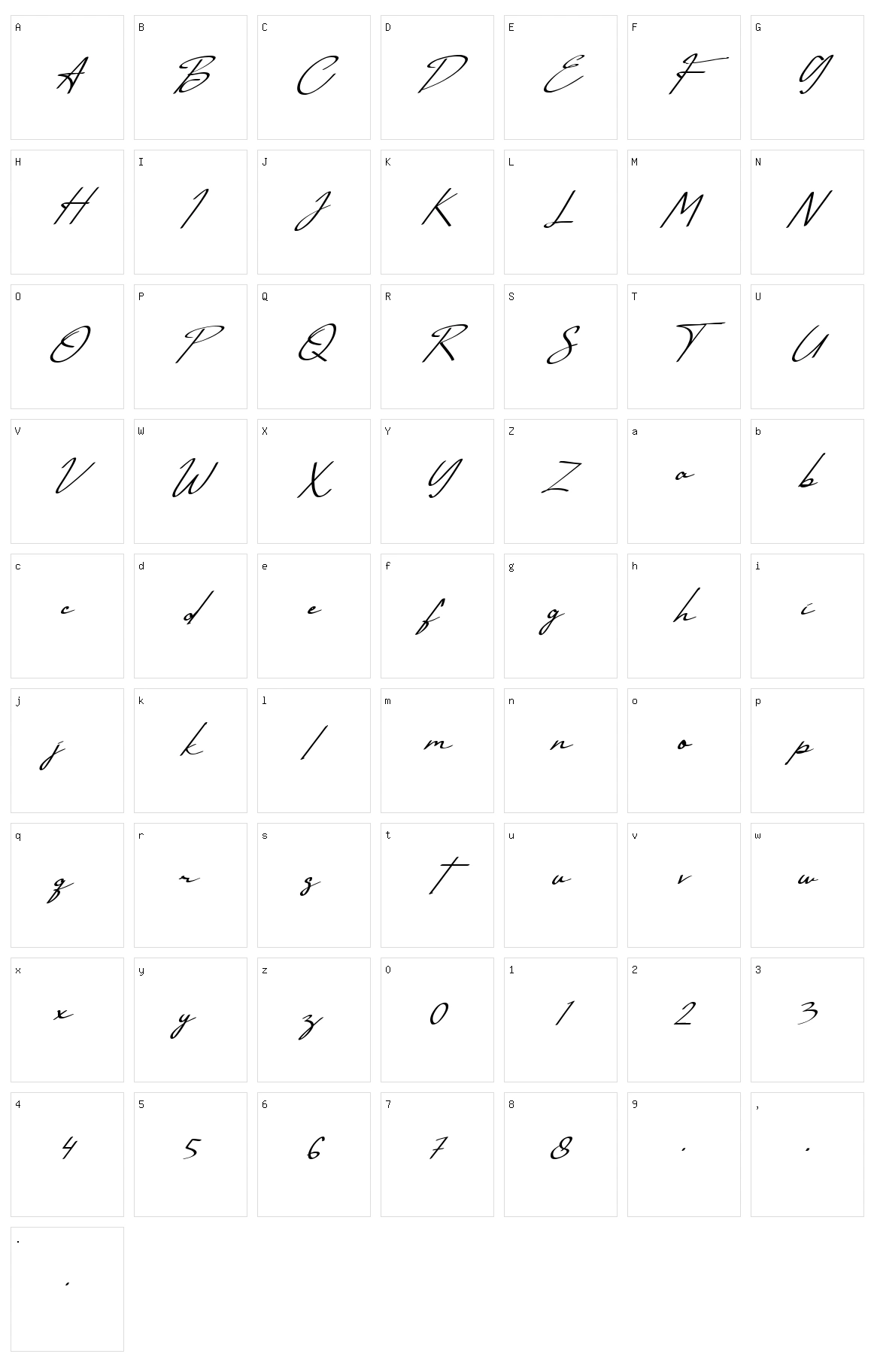
The free font Bhenay Signature is carefully designed by Nabila, showcasing a thoughtful balance of creativity and usability and falls under the Script font style. When you download the ZIP file, it contains only 23.34 KB of font files, making it lightweight and quick to download. Please review the license details below to understand permitted usage and distribution rights. If license information is not available, we recommend using this font for personal projects only or contacting the author directly for commercial usage permissions.